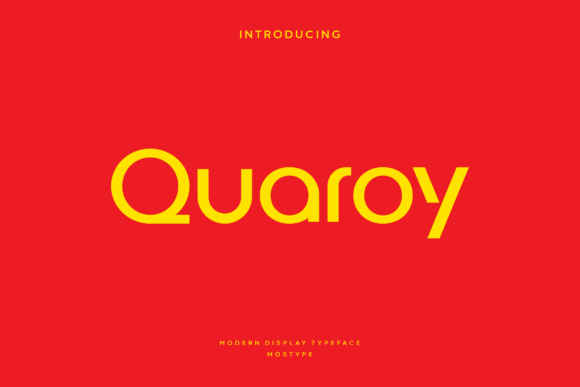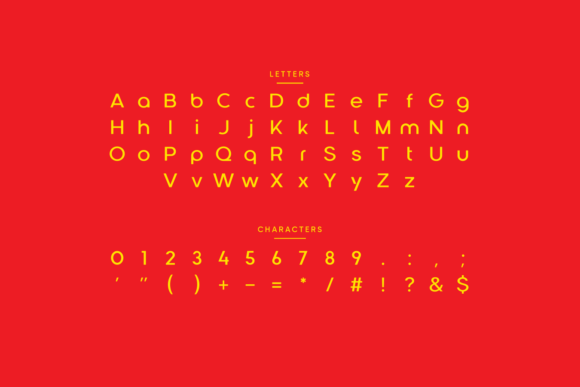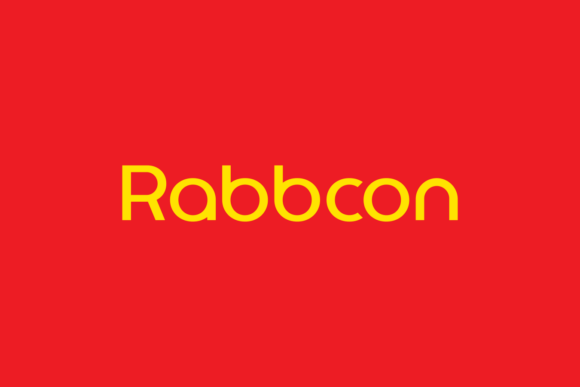
Quaroy Font: Modern Sans Serif for Branding & Logo Design
About the Quaroy Font
Experience the unique personality of Quaroy Font, a font designed for impact. **Quaroy** is a modern sans-serif typeface crafted for professional branding and corporate design. Featuring a full range of weights from Thin to Bold, it combines clean lines with versatile functionality, making it ideal for logos, visual identities, and sophisticated branding needs.
Quaroy excels in headline applications, short-form text on packaging, and clean, modern branding projects where a sophisticated yet approachable feel is desired. Its strong, geometric forms lend themselves well to logo design and impactful visual identities. However, its less-than-optimal x-height makes it unsuitable for extended body copy or UI elements requiring high readability at smaller sizes.
For effective pairings, consider complementing Quaroy’s geometric sans-serif structure with a contrasting serif like Garamond for a touch of classic elegance or a script typeface such as Great Vibes for a more playful feel in secondary text elements. Alternatively, a neutral sans-serif like Open Sans can provide a strong, reliable counterpart for improved readability in supporting text.
Quaroy projects a modern, confident personality; its clean lines and strong forms convey professionalism and reliability without appearing cold or overly austere. It is best suited for brands seeking a sophisticated, contemporary image.